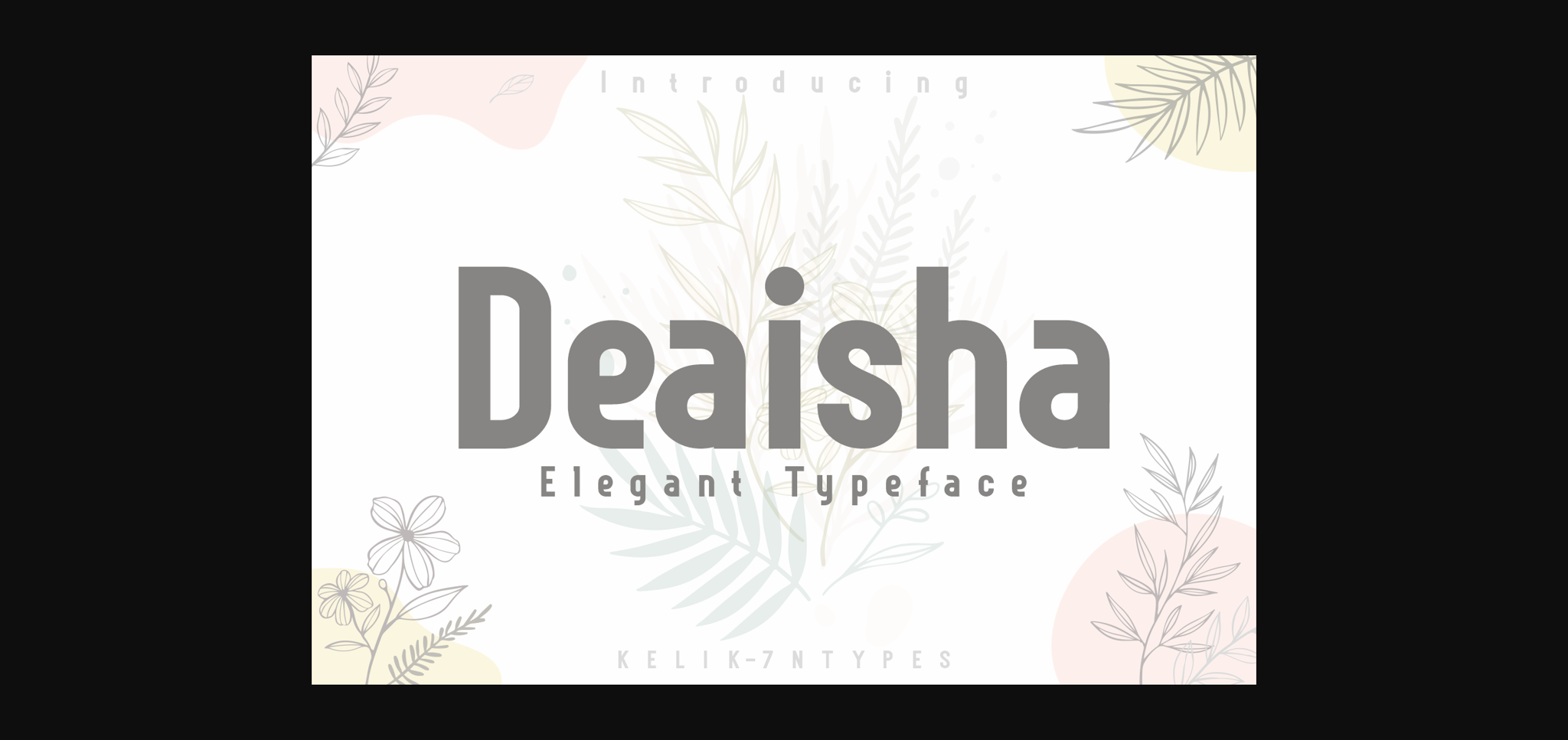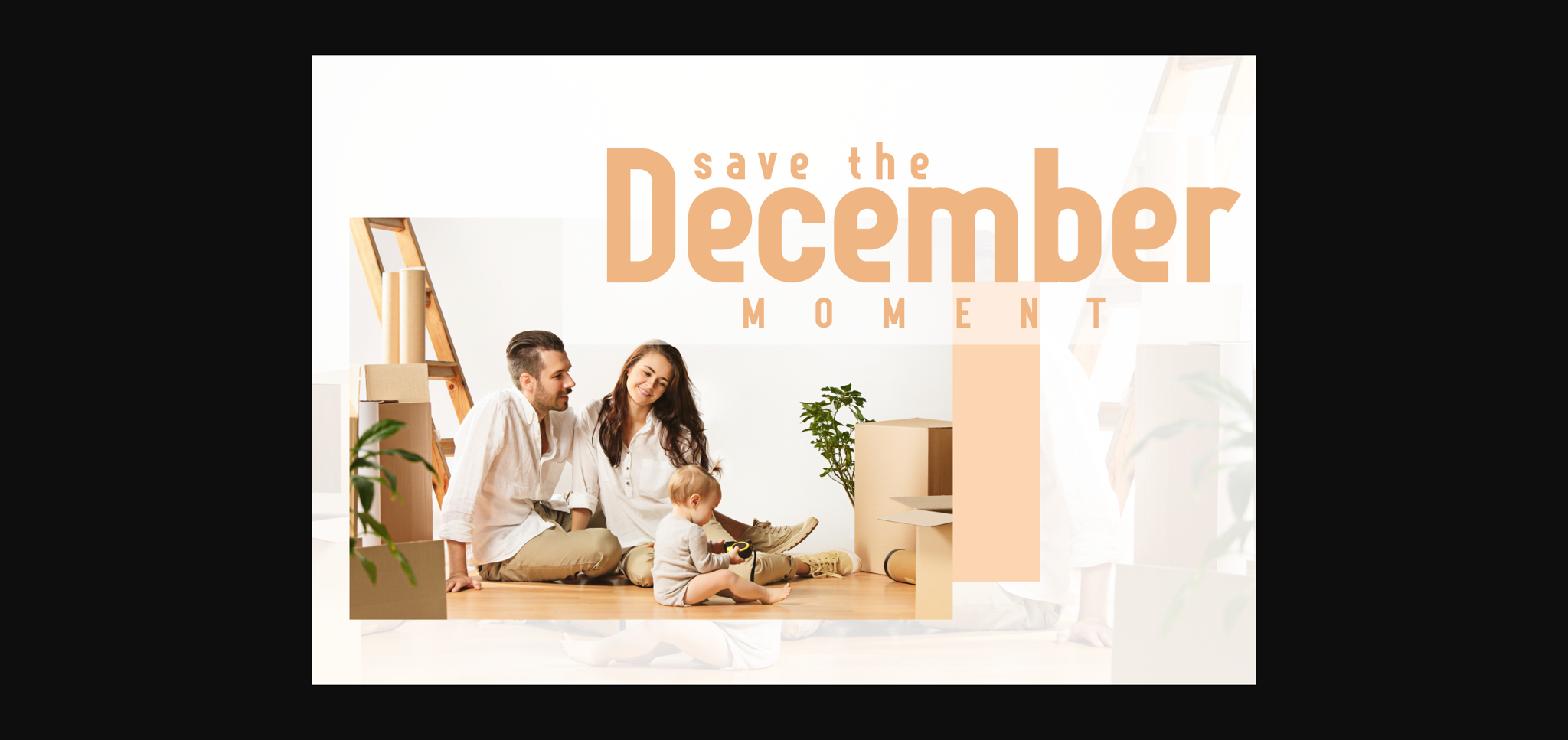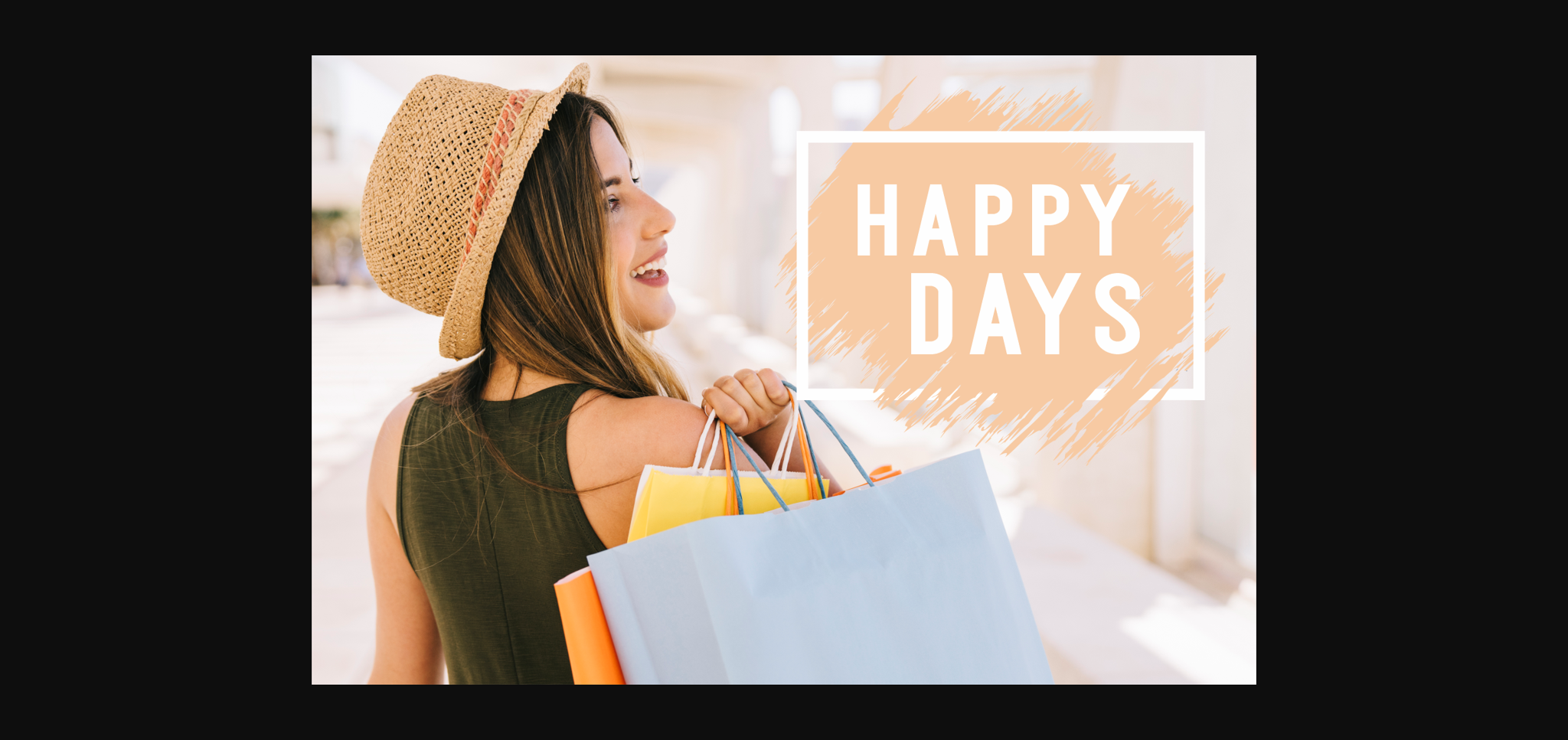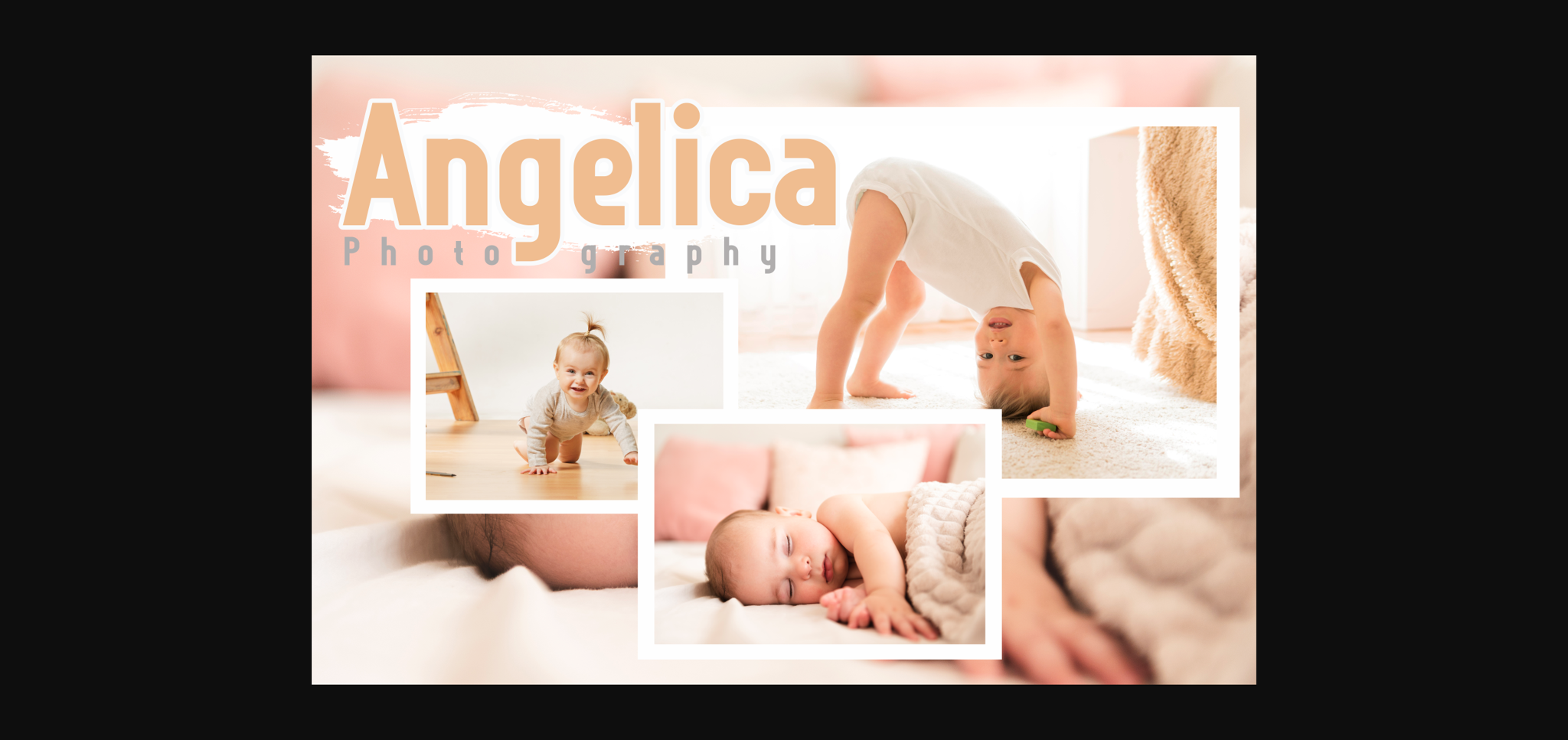
About Deaisha Font
Deaisha is a bold, yet elegant sans serif font. Suitable to a wide variety of designs due to its neat and simple style, this font has the potential to become your favorite go-to font, no matter the occasion!